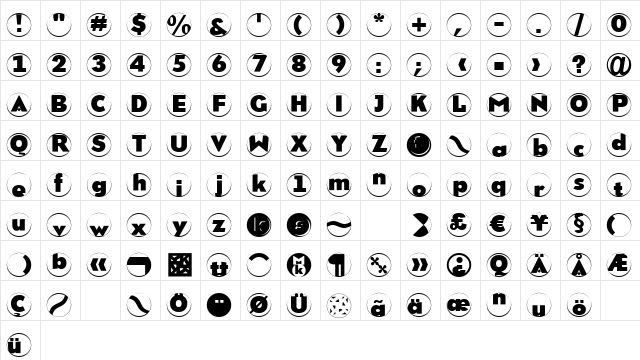
BrixRoundMKPositive Regular Font Preview
BrixRoundMKPositive Regular
Design Context for BrixRoundMKPositive Typeface
BrixRoundMKPositive uses gentle rounded endings to create a warm, inviting typographic personality — less corporate than geometric sans, more refined than playful display fonts.
Well-suited to UI design, mobile interfaces, and any brand that wants approachability without sacrificing clarity.
Font Pairing: Pairs well with a rounded or humanist sans for body copy, maintaining the friendly tone without relying on BrixRoundMKPositive to carry extended reading.
Pro Tip: Use BrixRoundMKPositive for UI elements, app interfaces, and anywhere a friendly, approachable tone needs to be maintained without sacrificing clarity.